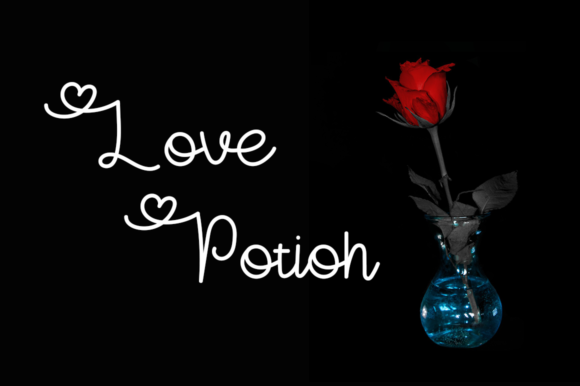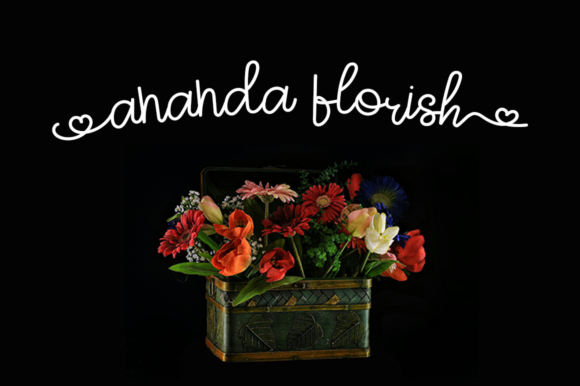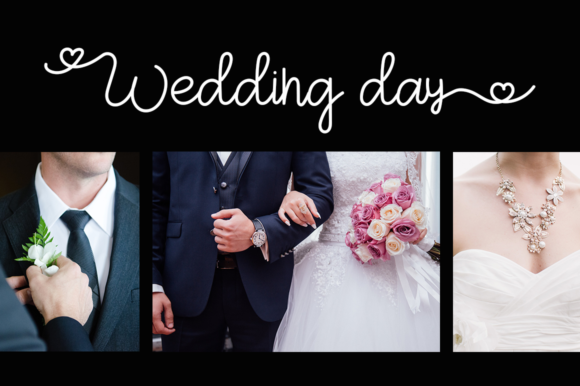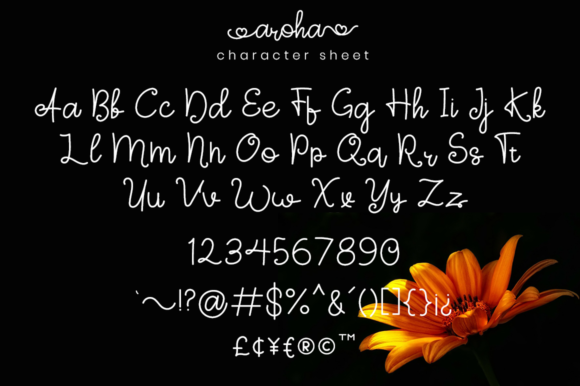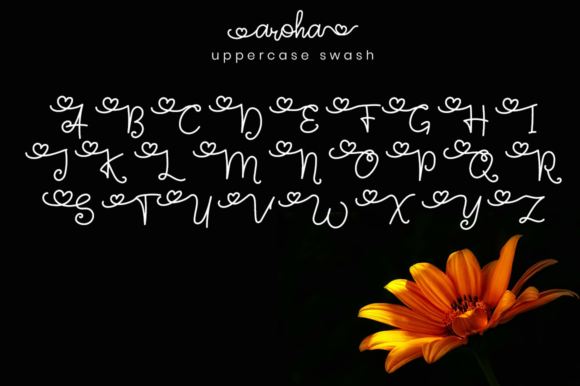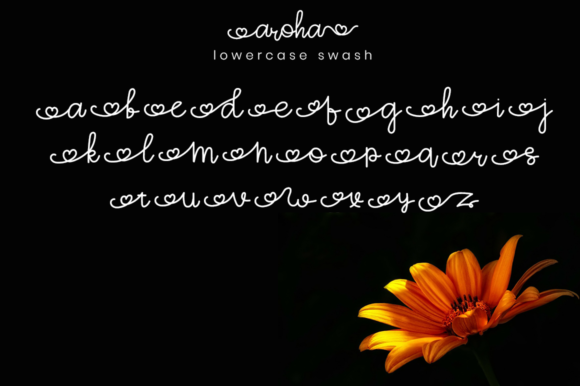
Aroha Script Font: Add a Lovely Touch to Your Designs
Aroha Script Font is a charming and playful handwritten font that can add a unique spin to any design project. With its sweet and fun characteristics, Aroha is the ideal font for designers and crafters looking to infuse their work with a lovely feel. In this article, we’ll explore the features and benefits of Aroha Script Font, and how it can elevate your designs to the next level.
What is Aroha Script Font?
Aroha Script Font is a carefully crafted handwritten font that exudes warmth and personality. Its unique spin sets it apart from other script fonts, making it perfect for designers who want to add a touch of whimsy to their work. Aroha’s flowing lines and curves create a sense of movement and fluidity, making it ideal for use in a variety of design projects, from invitations and greeting cards to branding and advertising materials.
Key Features of Aroha Script Font
- Unique and Playful Style: Aroha’s distinctive style sets it apart from other script fonts, making it perfect for designers who want to add a touch of personality to their work.
- Sweet and Fun Characteristics: Aroha’s sweet and fun characteristics make it ideal for use in designs that require a playful and approachable tone.
- Handwritten Feel: Aroha’s handwritten feel gives it a personal and authentic touch, making it perfect for use in designs that require a human touch.
- Versatile and Flexible: Aroha is a versatile font that can be used in a variety of design projects, from digital designs to print materials.
Benefits of Using Aroha Script Font
Using Aroha Script Font in your designs can have a range of benefits, including:
- Adding a Personal Touch: Aroha’s handwritten feel and unique style can add a personal touch to your designs, making them more relatable and engaging.
- Standing Out from the Crowd: Aroha’s distinctive style sets it apart from other script fonts, making it perfect for designers who want to create unique and eye-catching designs.
- Creating Emotional Connections: Aroha’s sweet and fun characteristics can help create emotional connections with your audience, making your designs more memorable and impactful.
How to Use Aroha Script Font in Your Designs
Aroha Script Font is easy to use and can be incorporated into a variety of design projects. Here are some tips for using Aroha in your designs:
- Pair it with Other Fonts: Aroha can be paired with other fonts to create a unique and visually appealing combination.
- Use it in Headings and Titles: Aroha’s bold and playful style makes it perfect for use in headings and titles.
- Add it to Your Branding Materials: Aroha can be used in branding materials, such as logos, business cards, and letterheads, to add a personal touch.
Aroha Script Font is a sweet and fun handwritten font that can add a unique spin to any design project. With its playful style, sweet characteristics, and versatile flexibility, Aroha is the ideal font for designers and crafters looking to infuse their work with a lovely feel. Whether you’re creating digital designs or print materials, Aroha is a great choice for adding a personal touch and creating emotional connections with your audience.